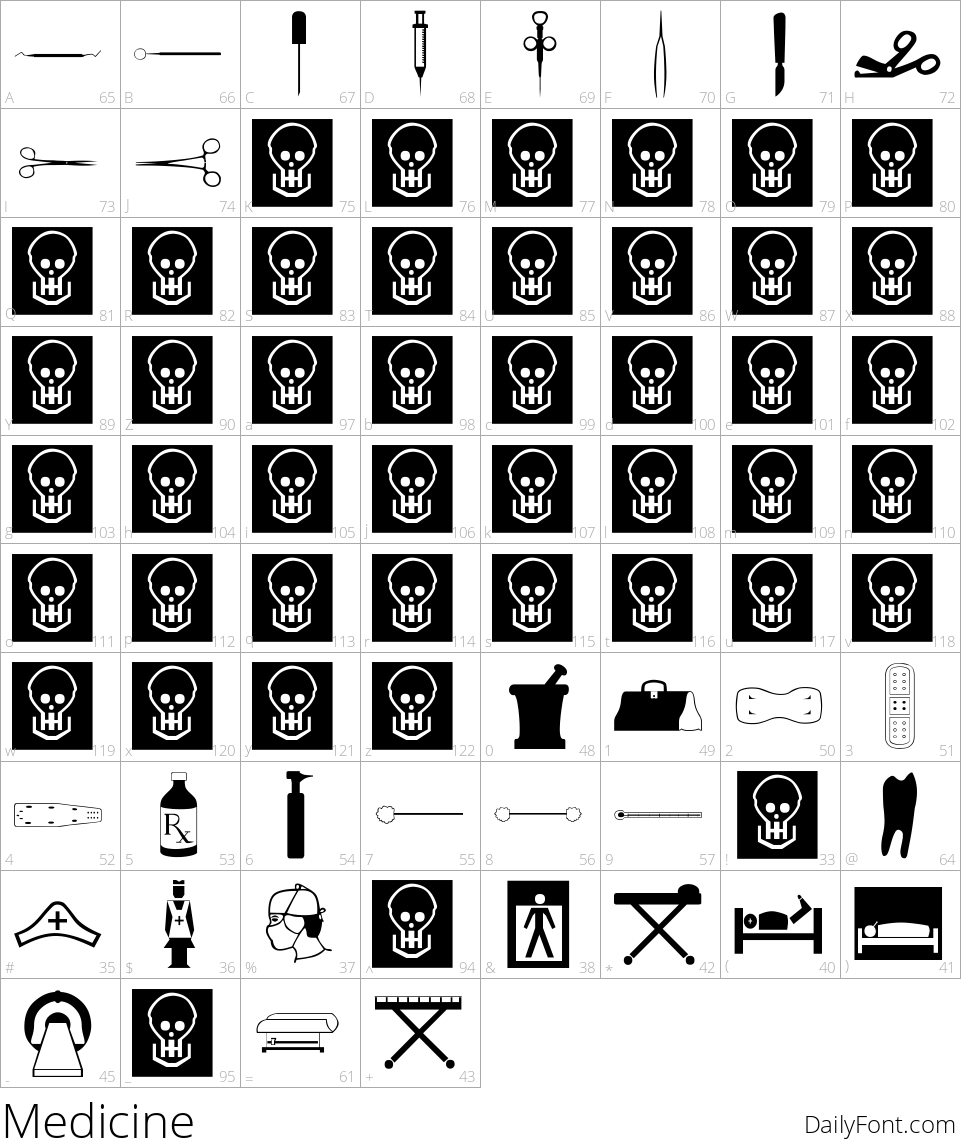
Dingbat fonts are all over the web, but it can be difficult to find a good medical dingbat font. Medicine has a good set of symbols that you can use where ever you need a medical design.